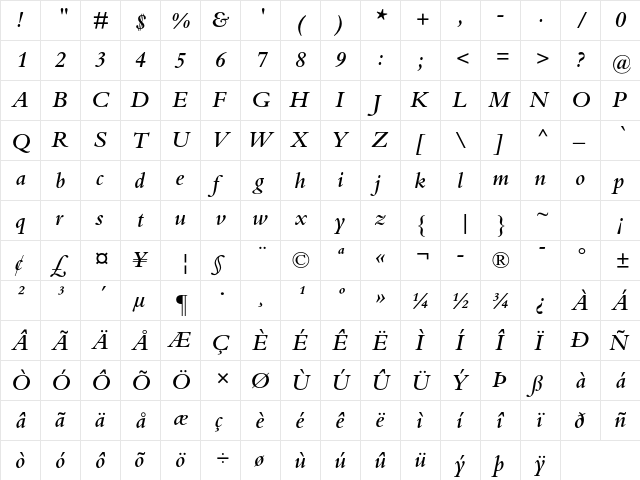
Bembo Std Semibold Italic Font Preview
Bembo Std Semibold Italic
| Designer | Stanley Morison, Monotype Staff |
Design Context for Bembo Std Typeface
Bembo Std takes a measured approach to typography — its balanced proportions and neutral character make it a reliable workhorse for both digital and print work. The dynamic lean of this cut emphasises speed and emphasis in any layout. Its bold stroke weight gives it real presence on the page.
Pro Tip: Use Bembo Std for emphasis, pull quotes, and subheadings where its slanted energy can add rhythm to the layout.